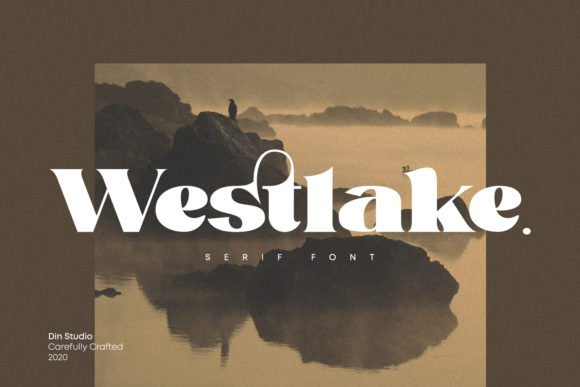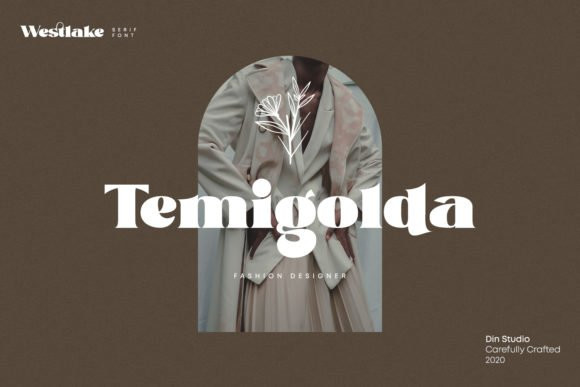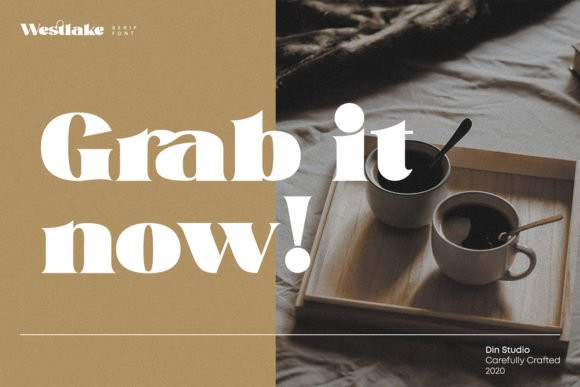
Westlake Font
Westlake FontWestlake is a bold and stunning serif font. This font wil look outstanding in any context, whether it’s being used on busy backgrounds or as a standalone headline!